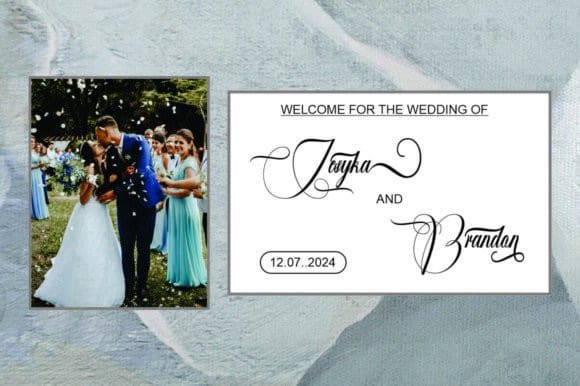
Priestley Script Font
Priestley Script Font is a new fresh & modern script with a handmade calligraphy style, decorative characters, and a dancing baseline! So beautiful on invitations like greeting cards, branding materials, business cards, quotes, posters, and more!!